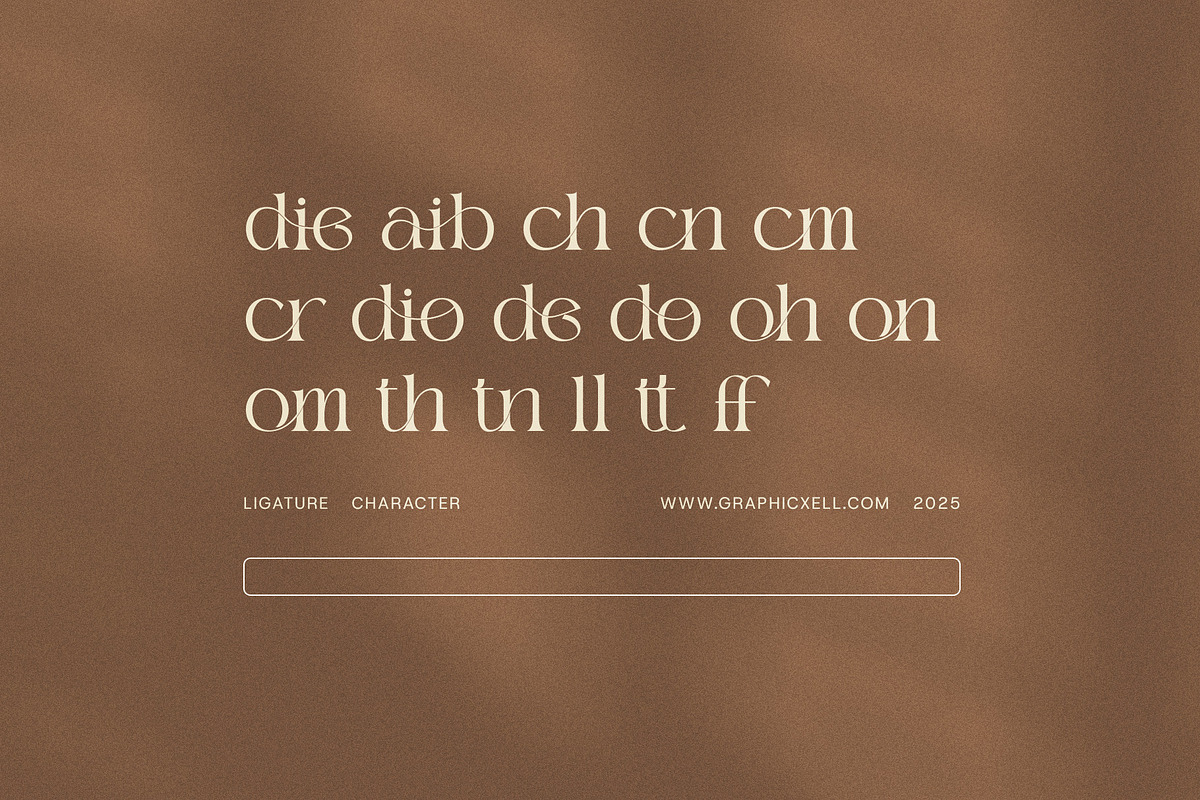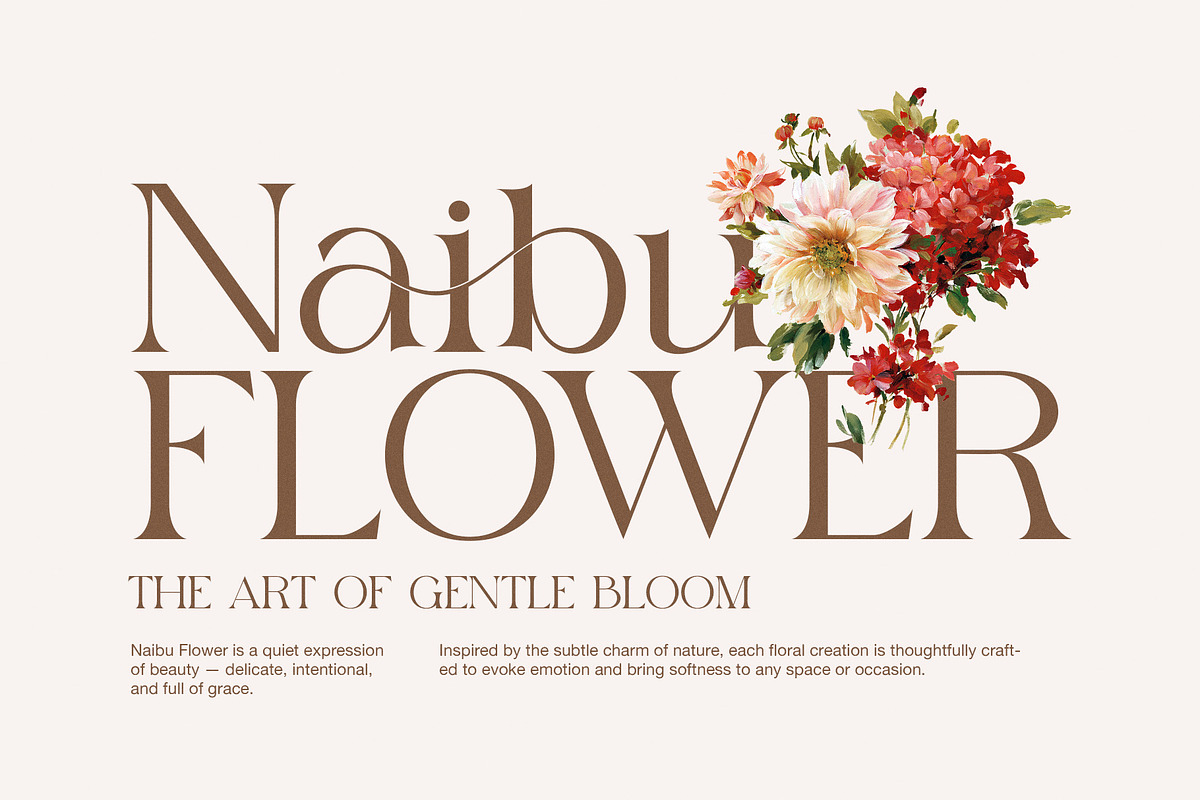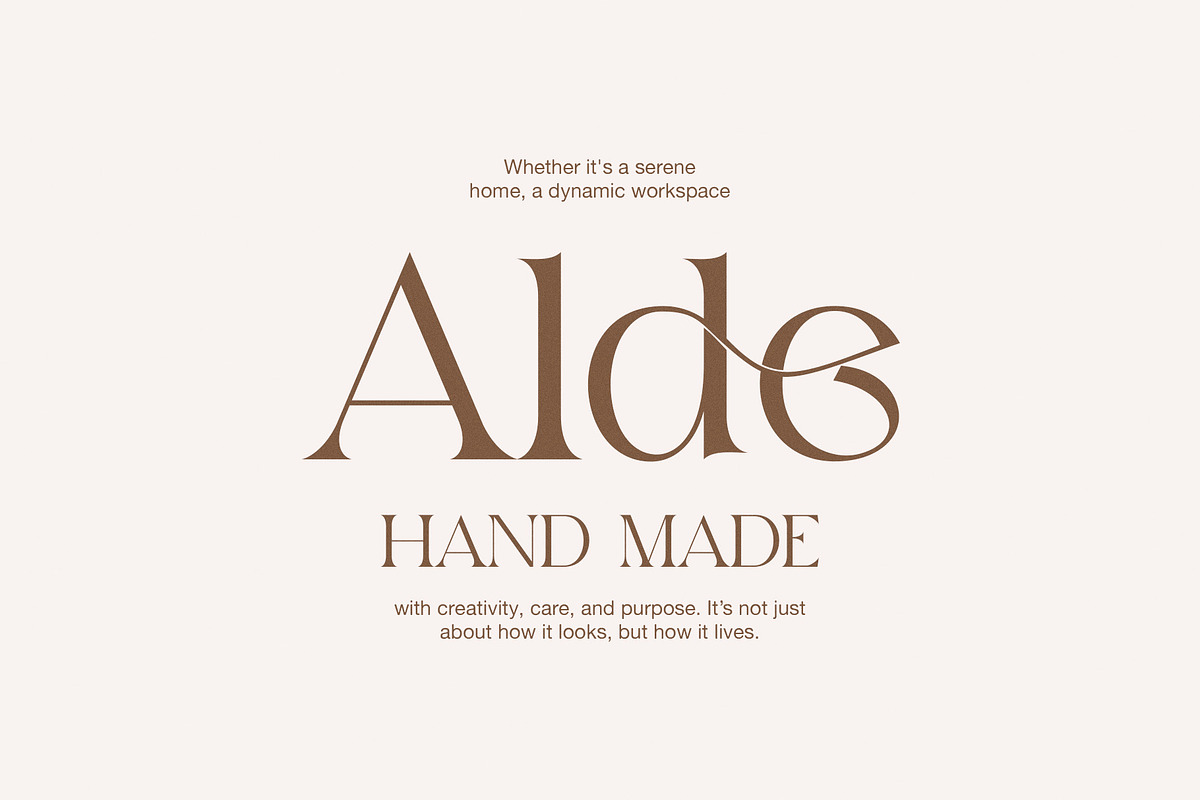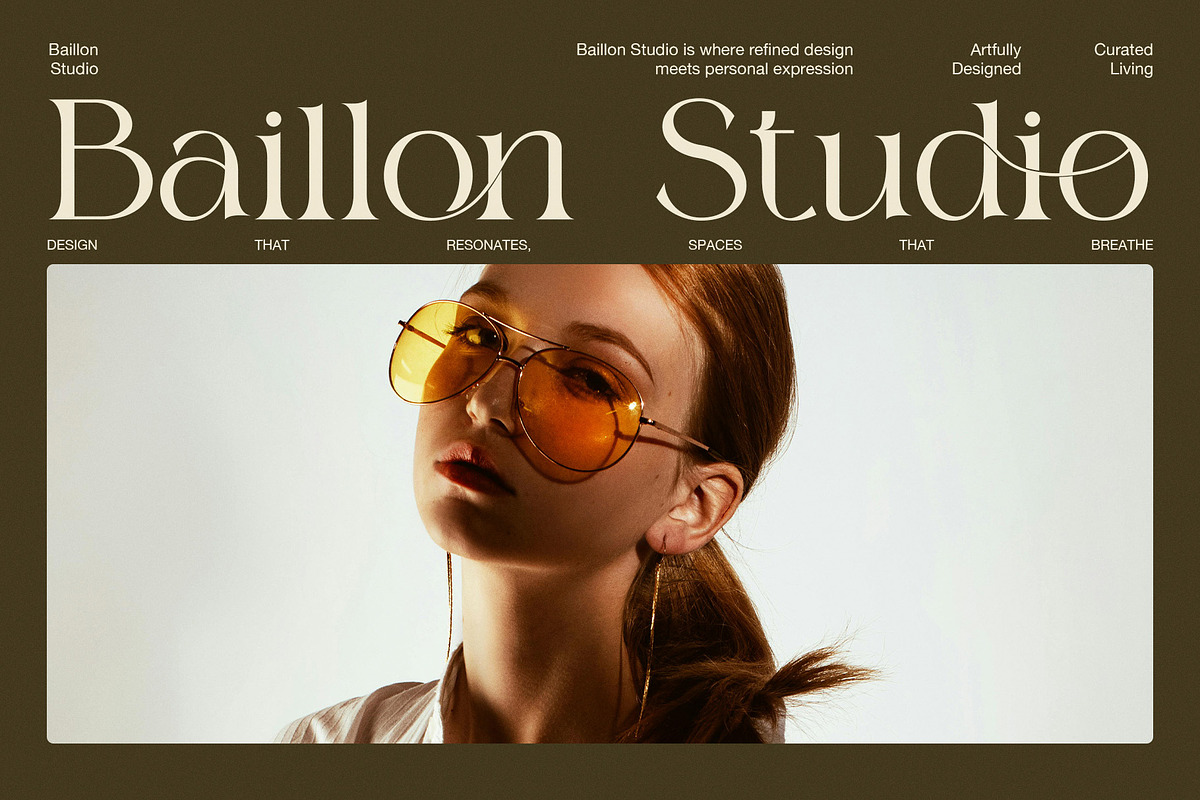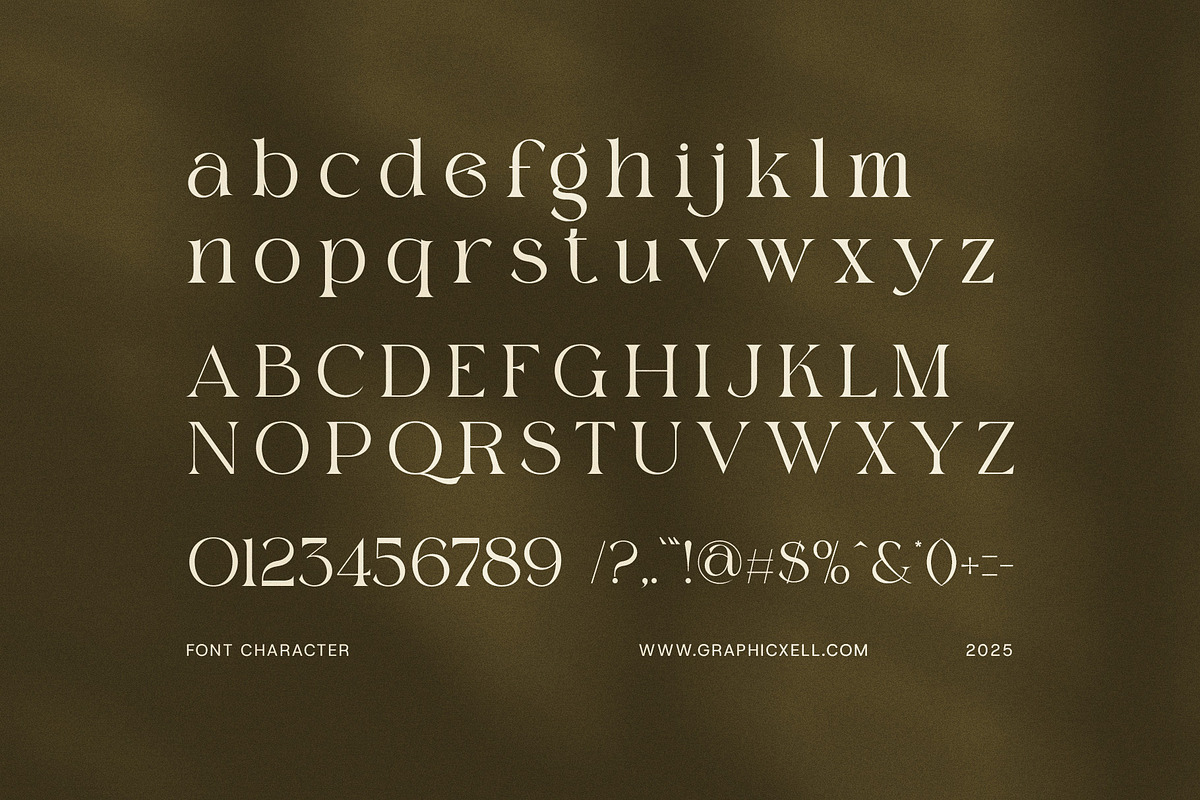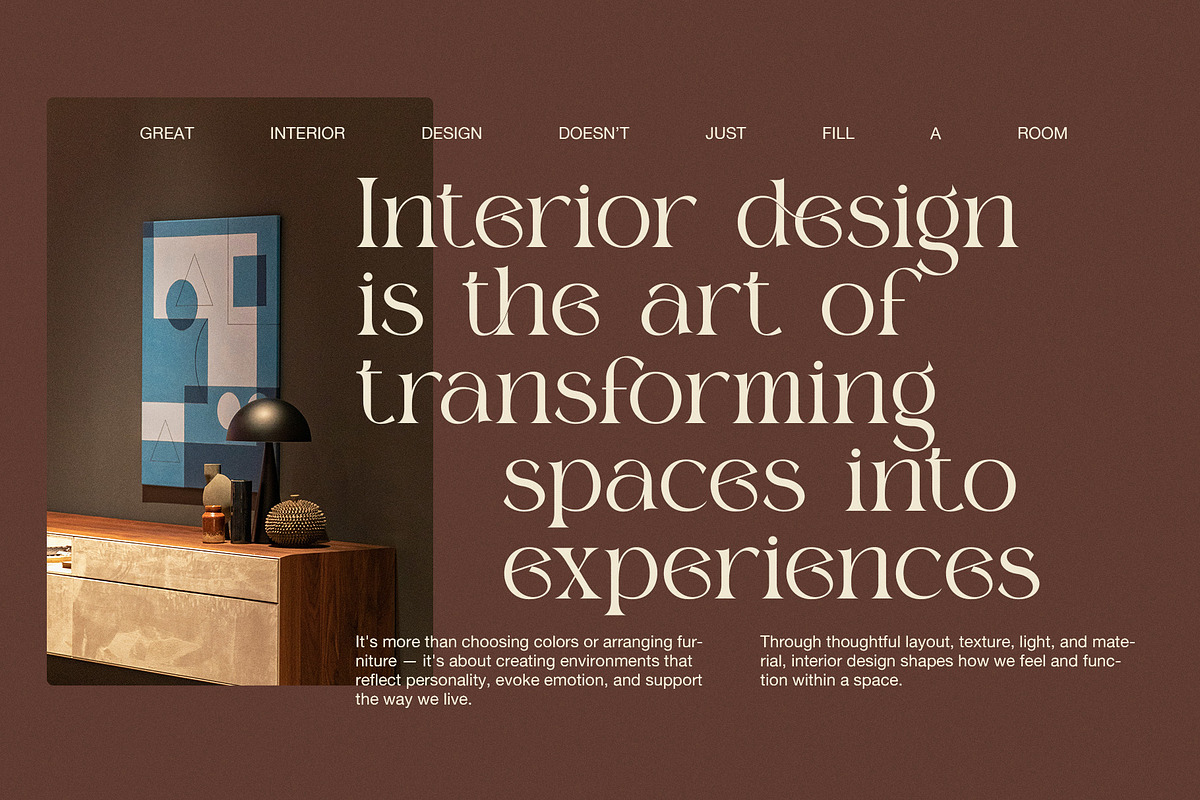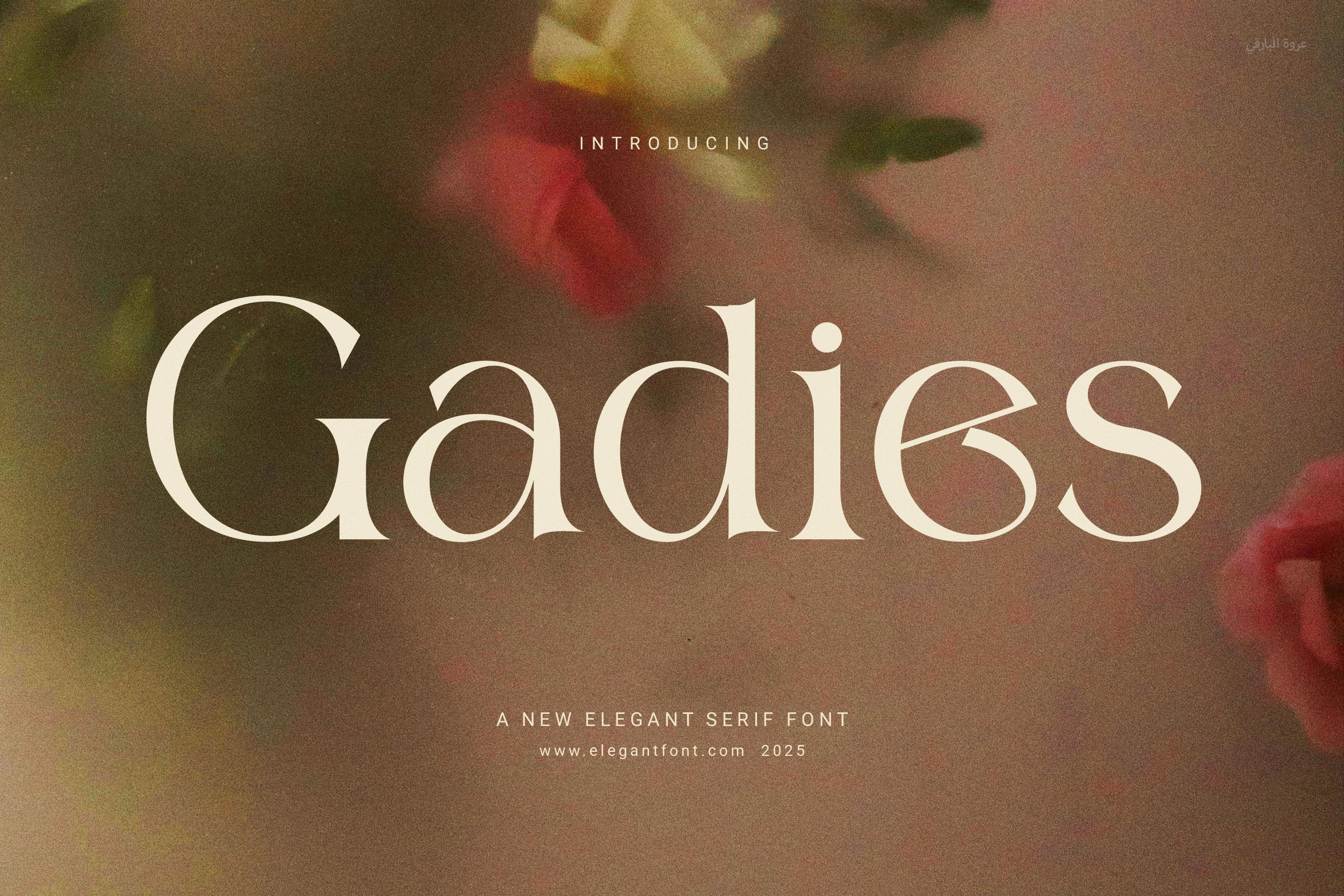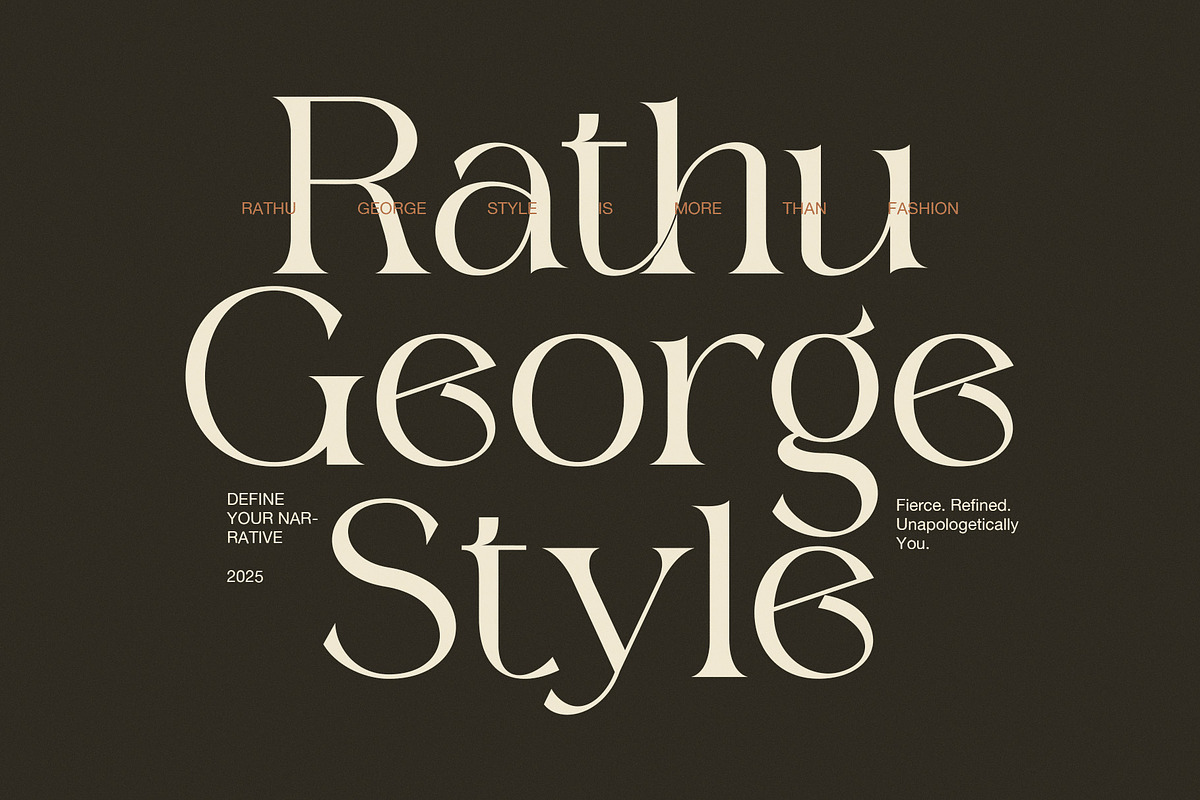
Gadies Elegant Serif Font
Gadies Elegant Serif Font – Simple Elegance, Timeless Impact
Gadies Elegant Serif Font brings a clean, modern look with a graceful touch. Designed for creators who want their work to look polished, elegant, and stylish, this font is the perfect match for branding, editorial, and packaging design.
With soft curves, clean lines, and a classy shape, Gadies blends traditional serif style with a modern edge. As a result, it looks great on everything from logos and websites to magazines and product labels. It also includes a set of stylish ligatures that connect letters smoothly—giving your designs a natural and beautiful flow.
Even though it's bold and eye-catching, Gadies still feels soft and easy to read. That’s why it works so well for both big headings and smaller body text. Whether you’re designing for a boutique, fashion label, beauty brand, or food product, this font brings a premium look with little effort.
Here’s what makes Gadies stand out:
Clean and elegant serif style
Easy-to-use with modern ligatures
Great for branding, logos, ads, packaging, and websites
Works well in both digital and print projects
Balanced letterforms for a high-end, professional feel
Looks good in minimalist and luxury designs
Because of its flexible style, Gadies helps your brand feel unique without being loud. Plus, it pairs nicely with sans-serif fonts, which makes it perfect for designers who want variety.